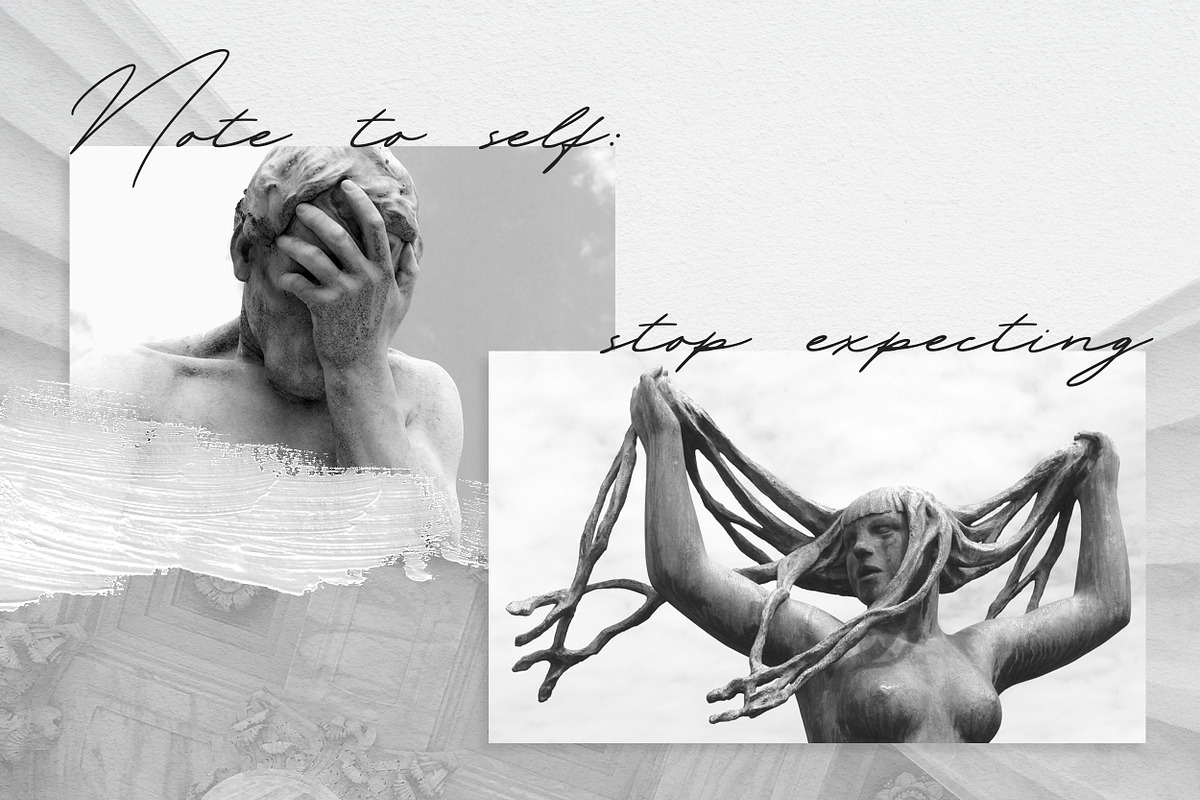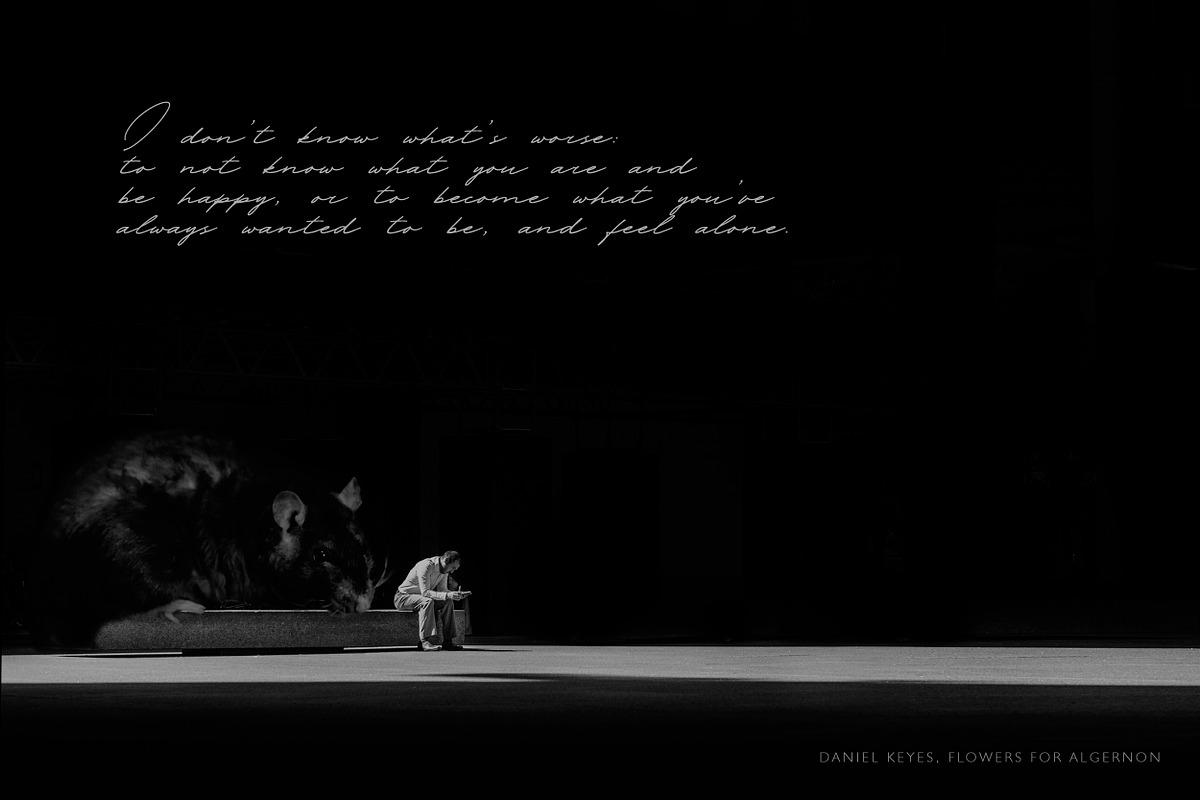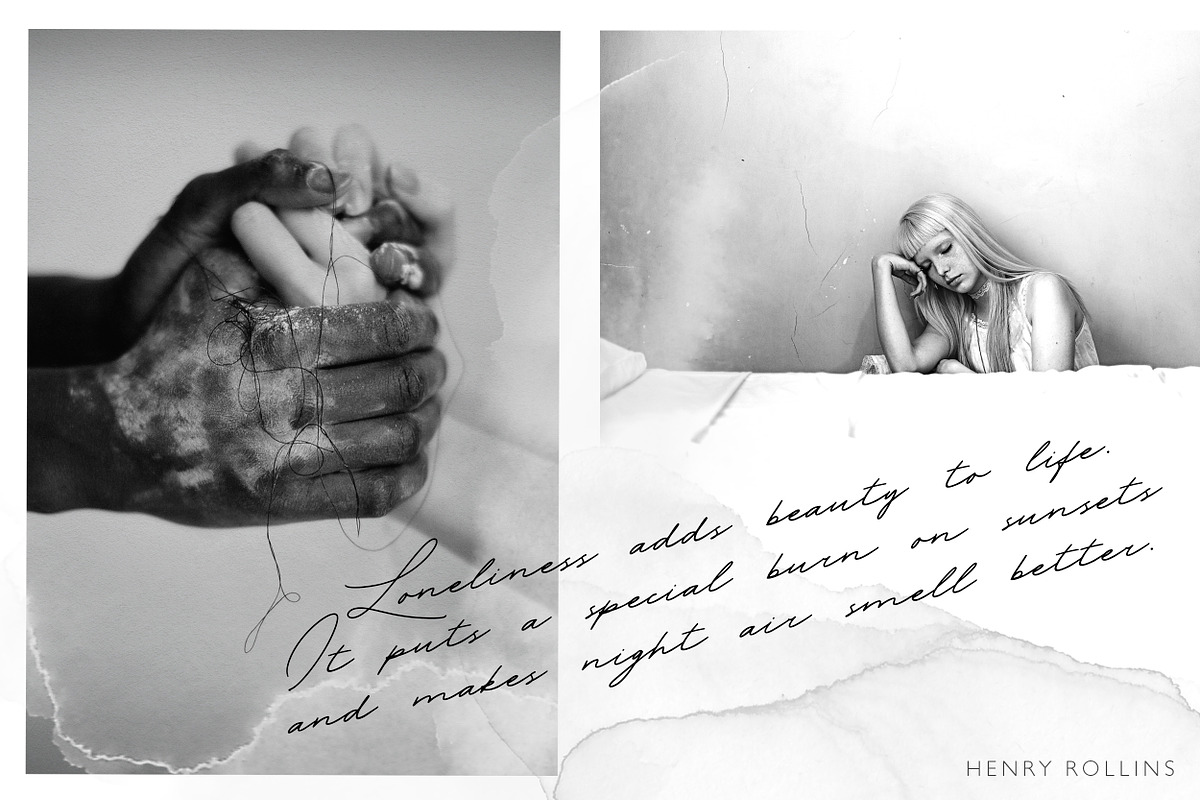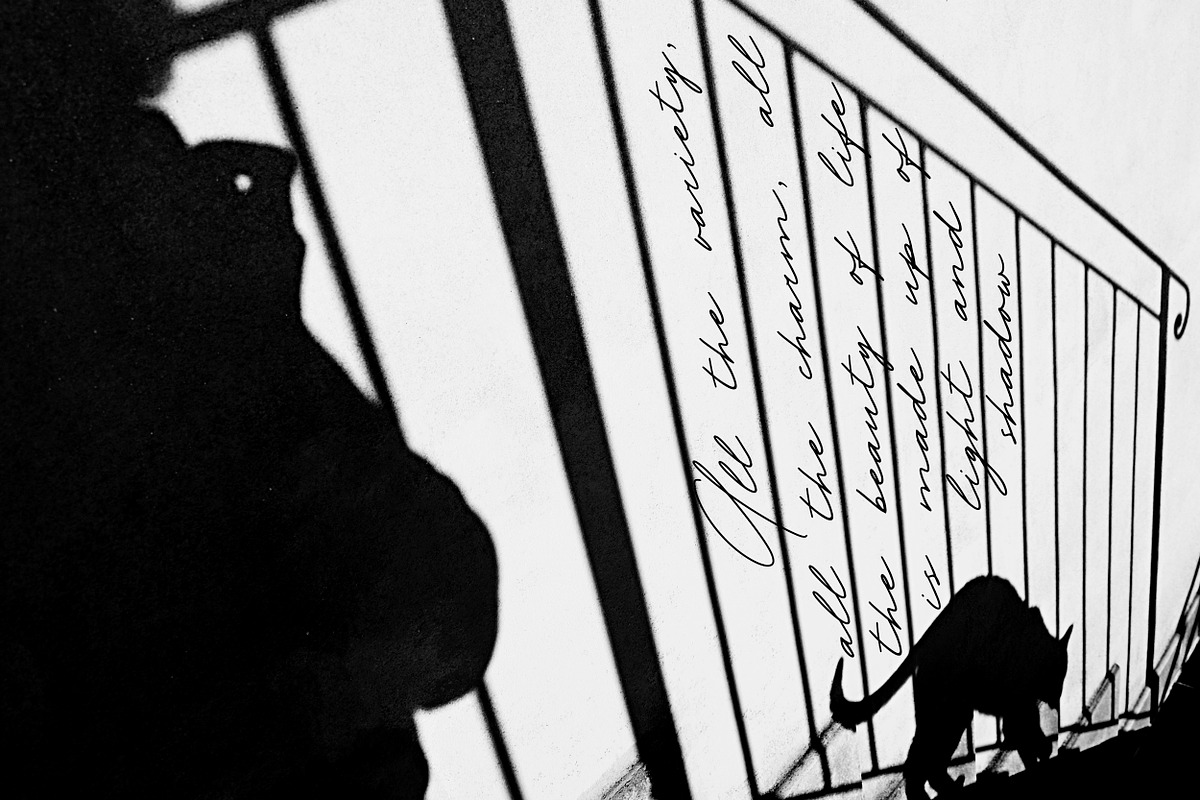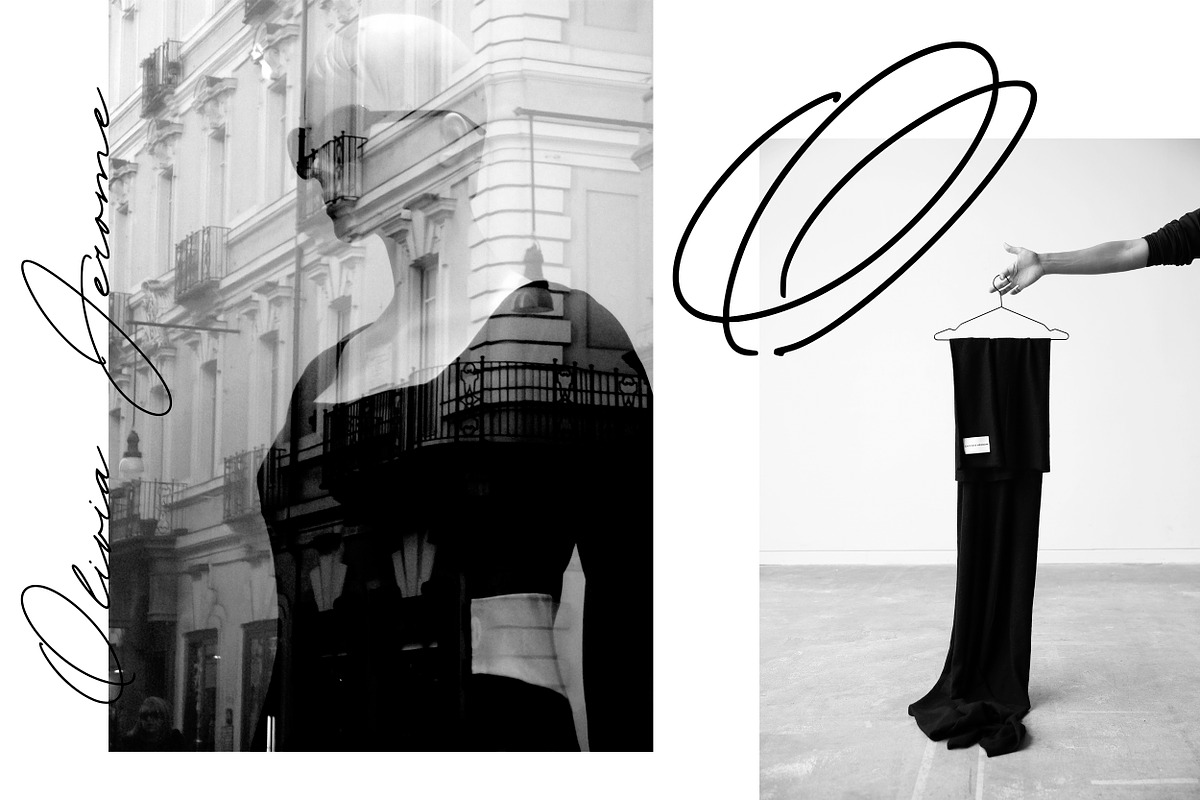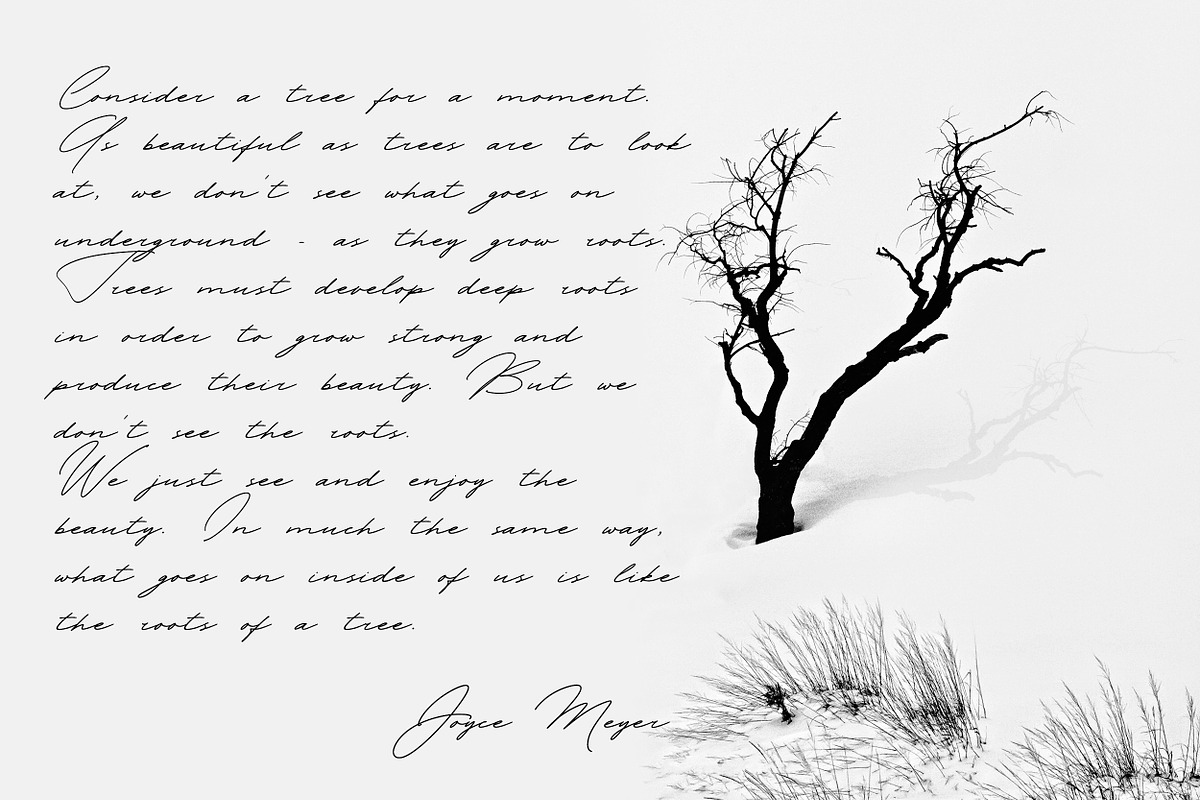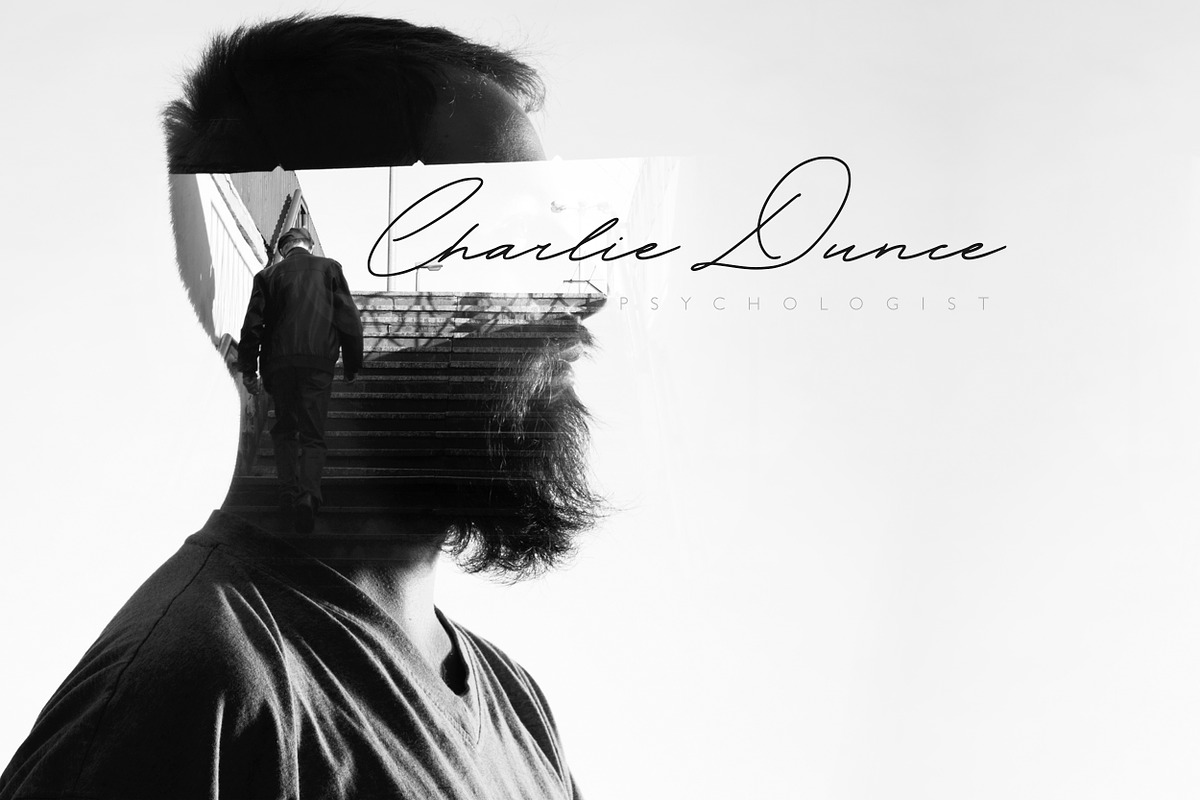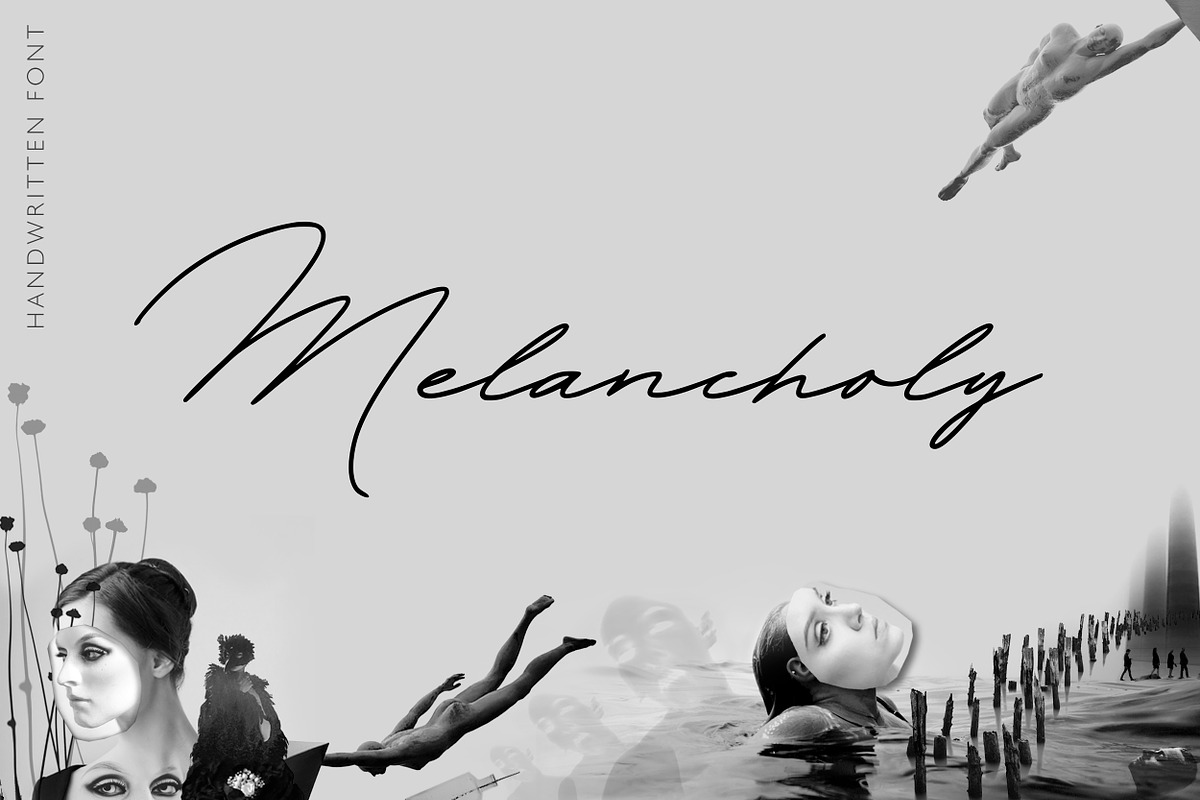
Melancholy handwritten font
Introducing Melancholy Font.
Melancholy Font is a beautifully crafted handwritten typeface that captures the essence of melancholy. Its graceful curves, delicate strokes, and unique character make it perfect for a wide range of creative projects.
Elegance in Every Stroke: Melancholy Font exudes an air of sophistication and elegance in every letterform. The handwritten style adds a personal touch to your designs.
Versatile Usage: This font is versatile and suitable for various design projects. Whether it's branding, invitations, quotes, or social media posts, Melancholy Font adds a touch of class to your creations.
Melancholy Font features distinct characters that stand out, making your text memorable and engaging.
Wedding Invitations: Create romantic and timeless wedding invitations that will leave a lasting impression on your guests.
Branding: Elevate your brand with a logo or visual identity that exudes elegance and sophistication.
Quotes and Posters: Craft beautiful quotes and posters that resonate with emotion and depth.
Editorial Design: Use Melancholy Font to add a touch of class to magazine layouts, book covers, and editorial designs.
Social Media: Make your social media posts stand out with text that combines melancholy with modern style.
UPDATE: Melancholy has now been updated to support Spanish, German, French, Italian, Portuguese, Swedish, Norwegian, Danish, Finnish and other (ÀÁÂÃÄÅÆÇÐÈÉÊËÌÍÎÏĨÑÒÓÔÕÖØŒŠ ÙÚÛÜŸÝŽ áàâãäåæçðèéêëìíîïĩıñòóôõöøœšùúûüýÿžß).